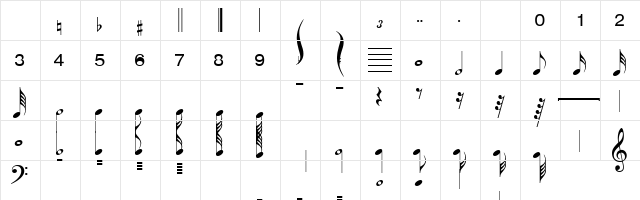
Nokia PC Composer Regular
Design Context for Nokia PC Composer Typeface
Nokia PC Composer is a composed and adaptable typeface that performs quietly and consistently across a wide range of design contexts.